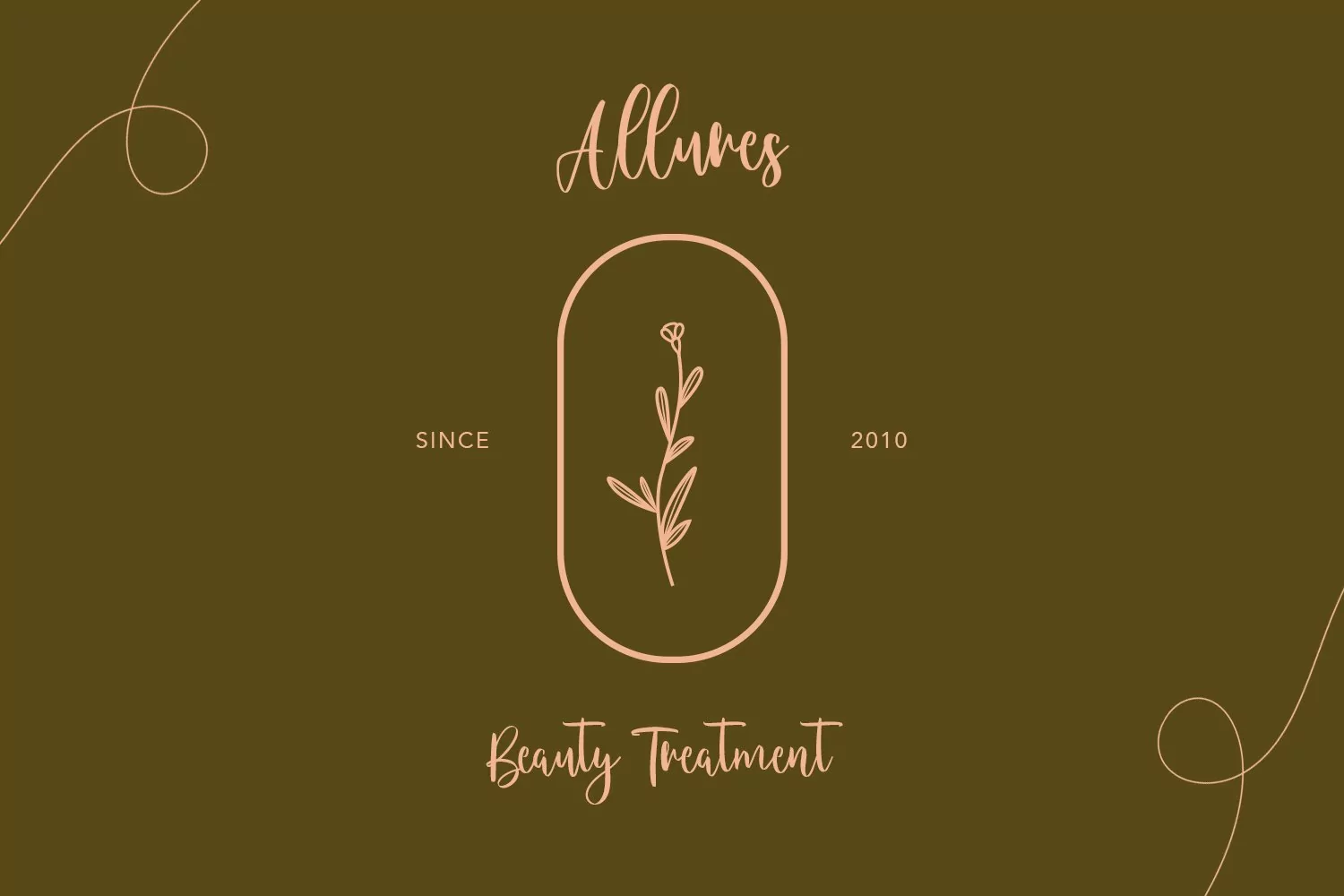
Montly Cloudy is a Beauty style script font. With clean stroke and fun character. It has Opentype features a couples of ligature, To give you an extra creative work. Montly Cloudy script font support multilingual more than 100+ language. This font is good for logo design, Social media, Movie Titles, Books Titles, a short text even a long text letter and good for your secondary text font with sans or serif. Make a stunning work with Montly Cloudy beauty script font.